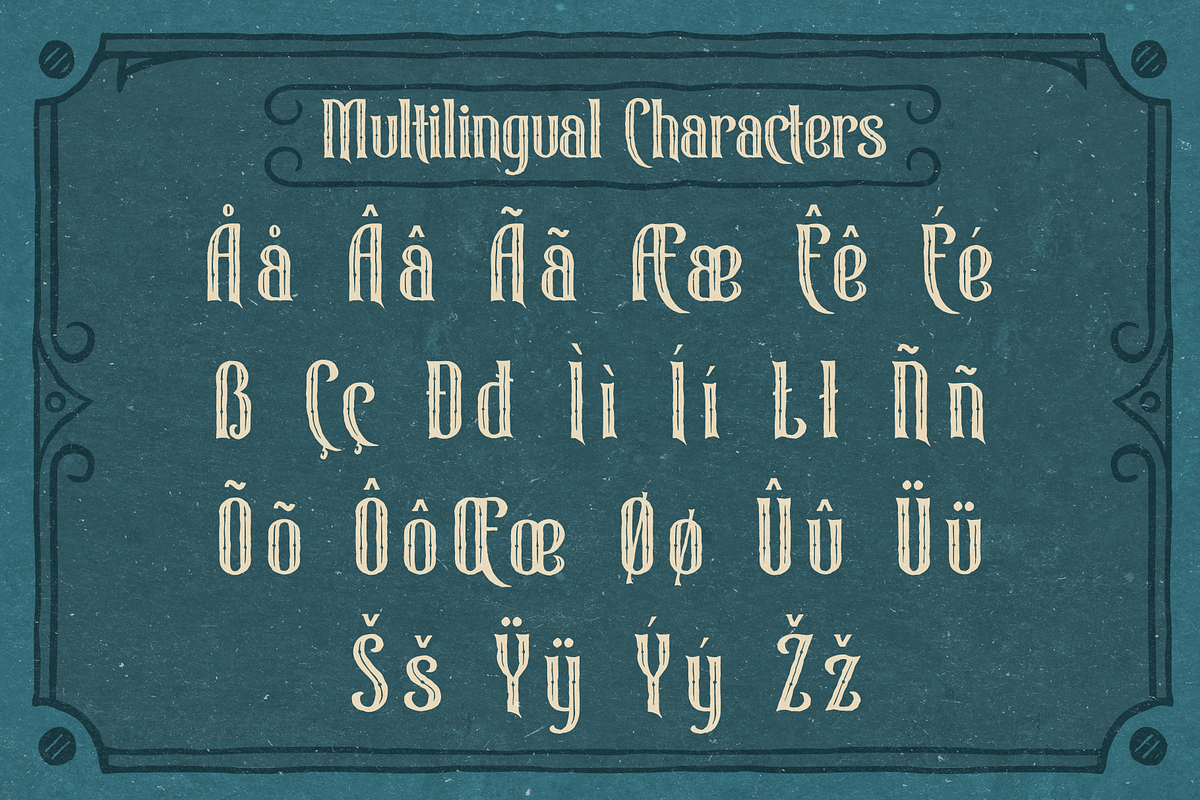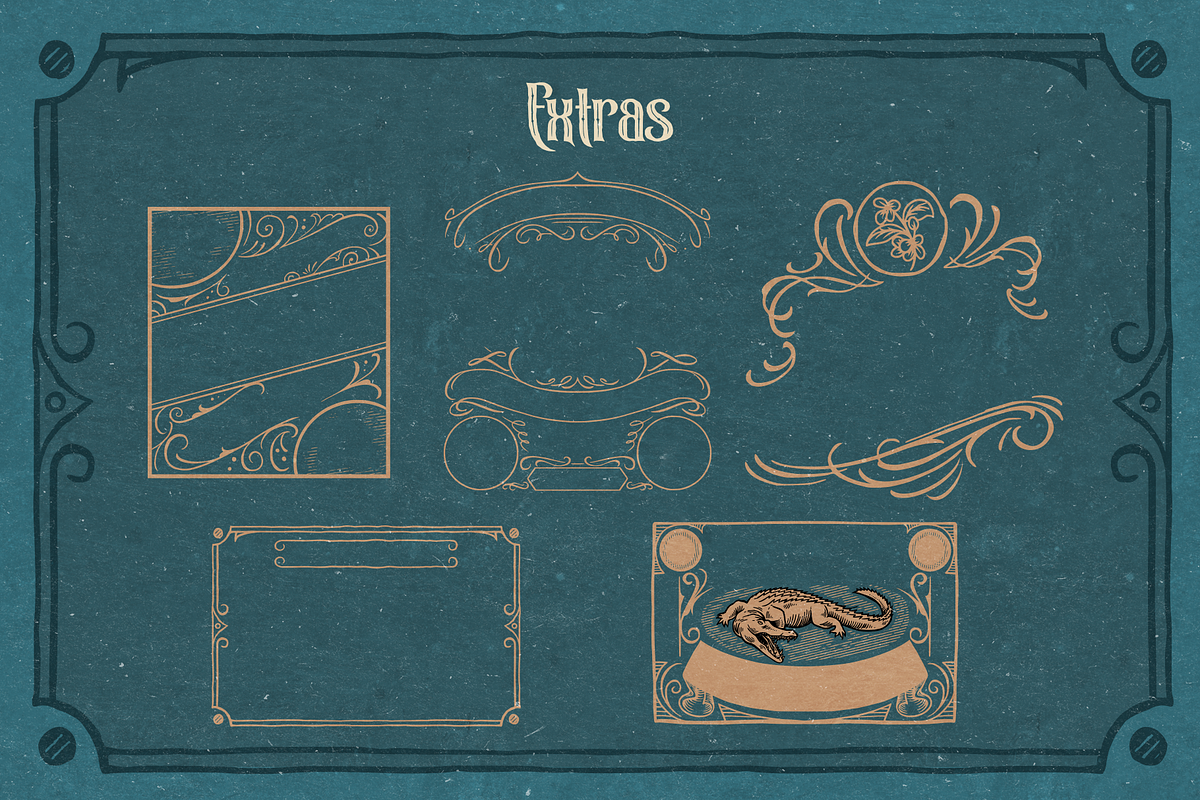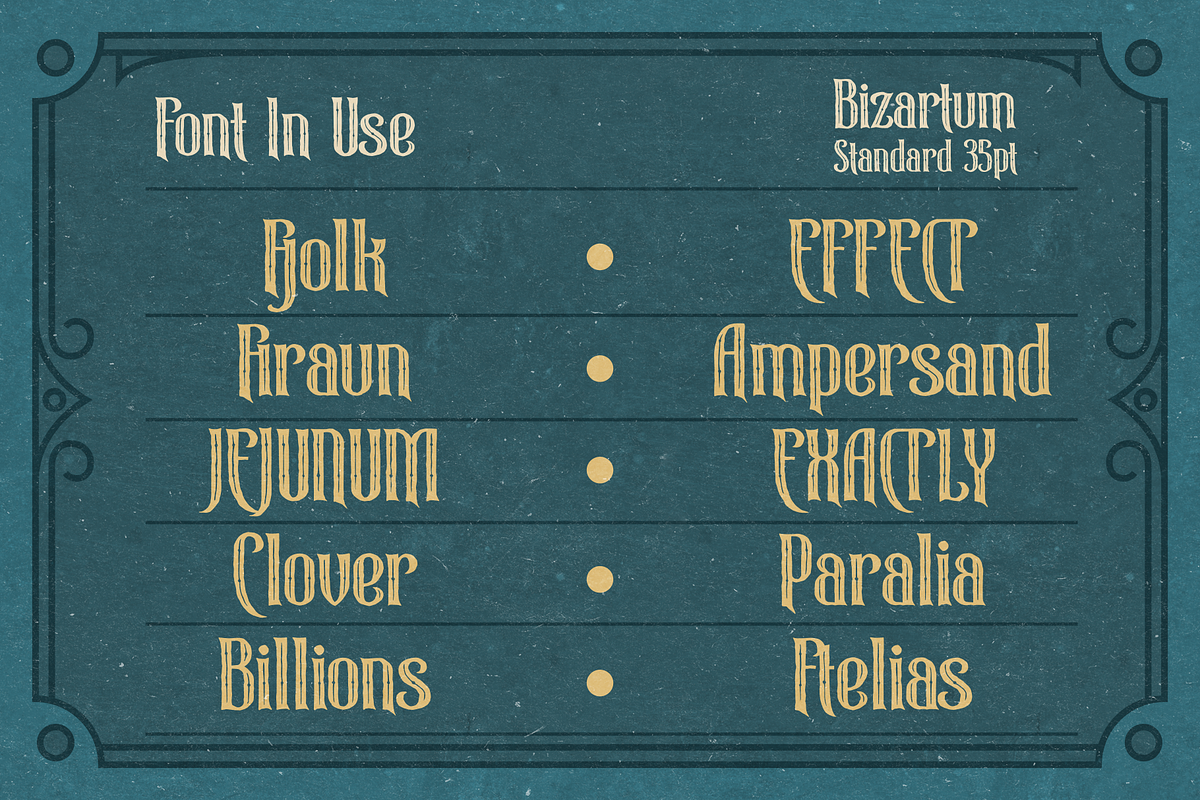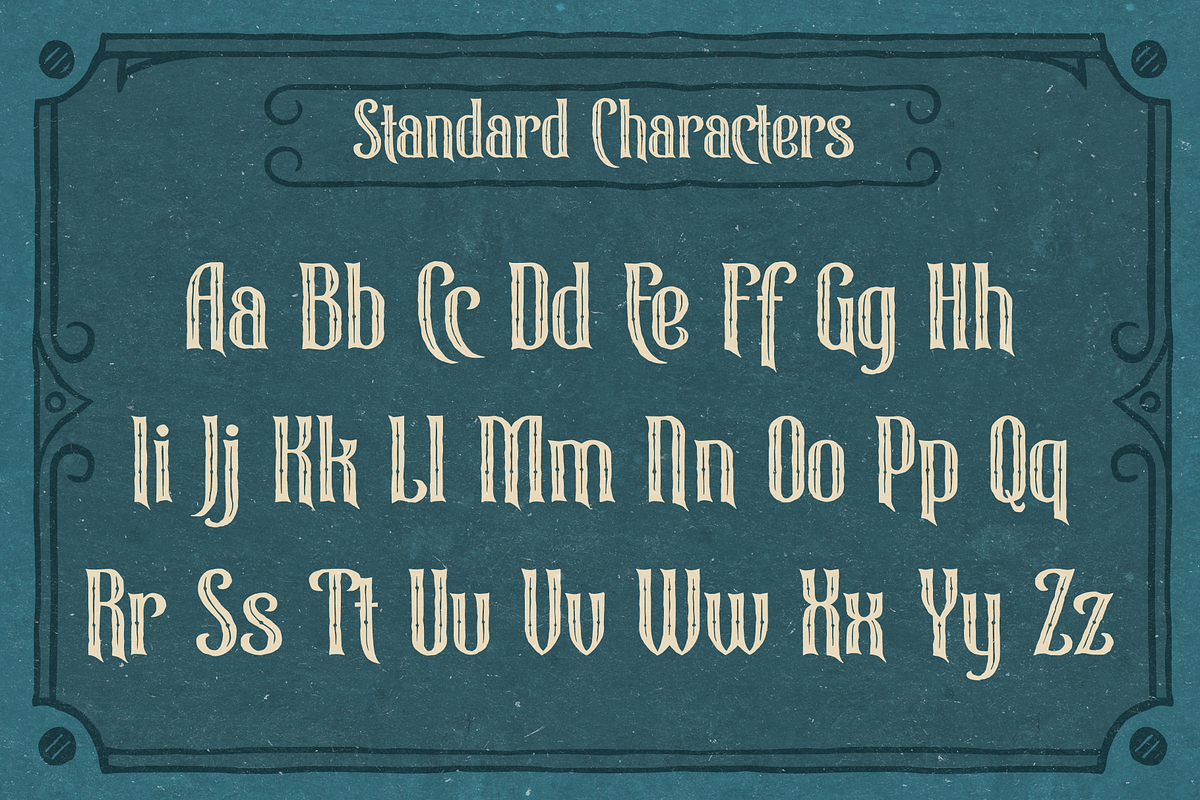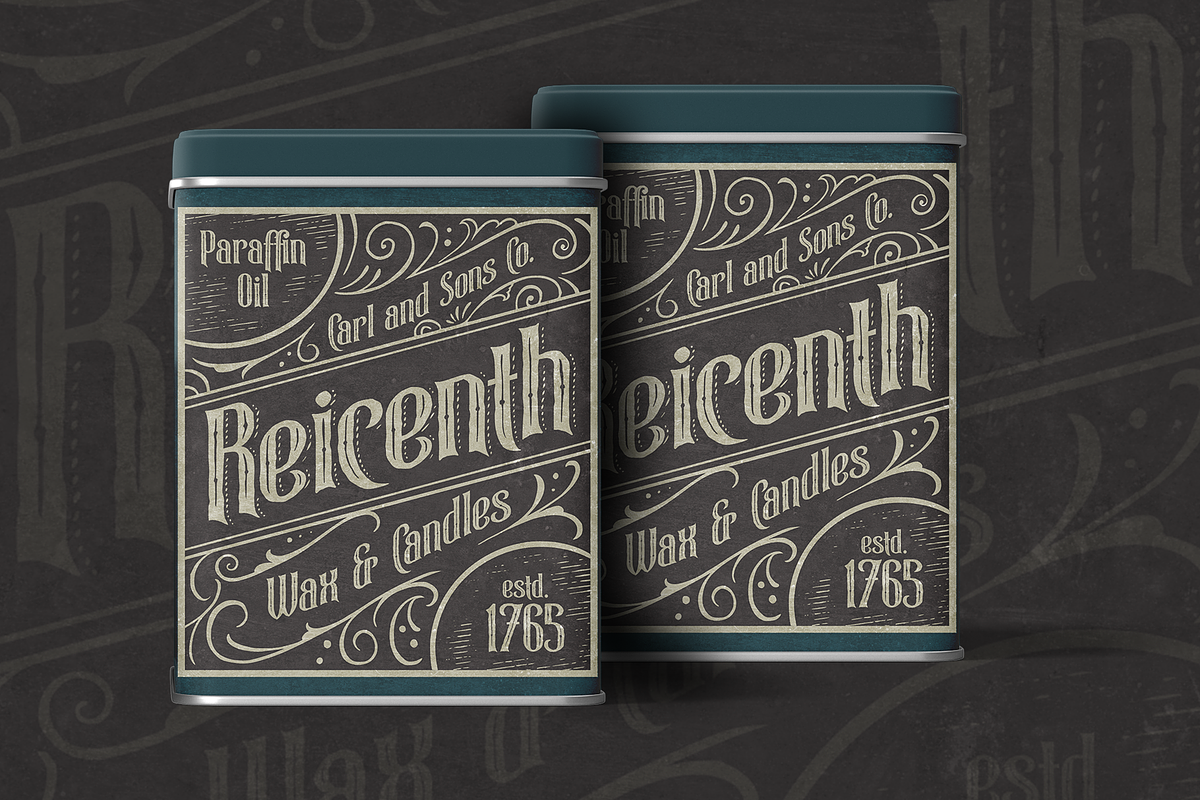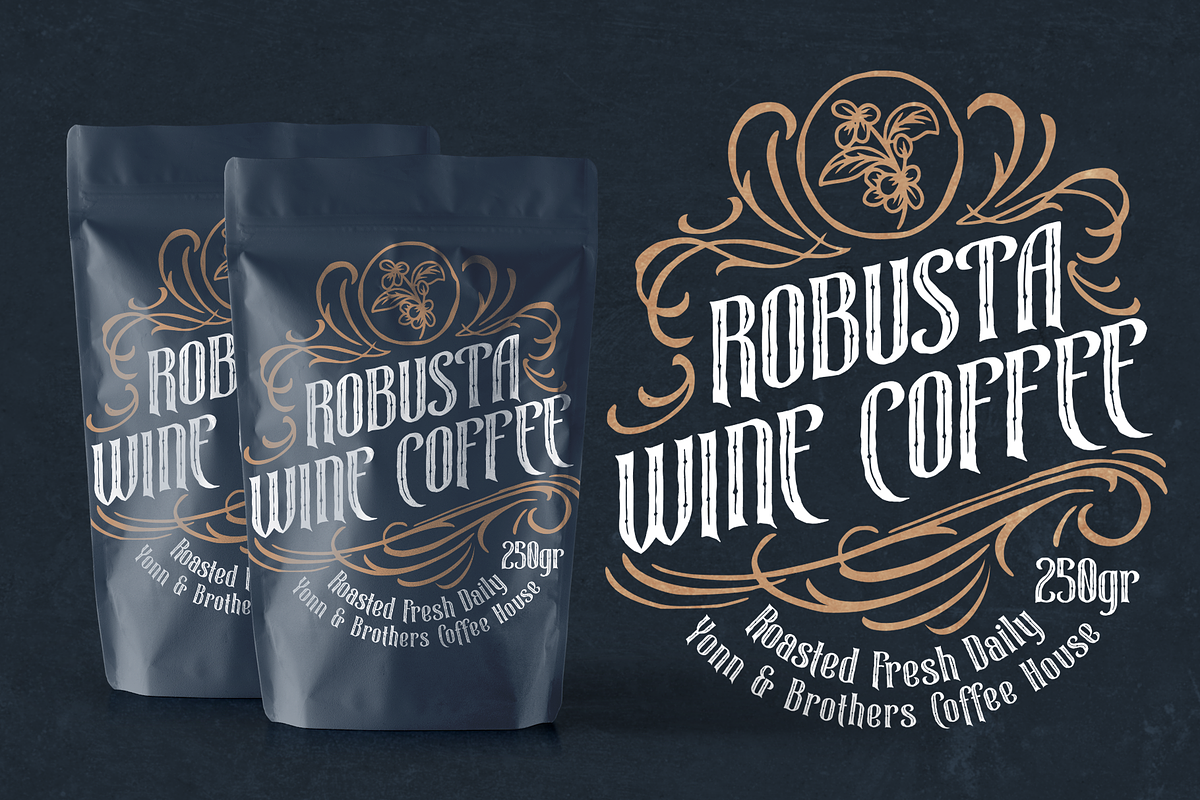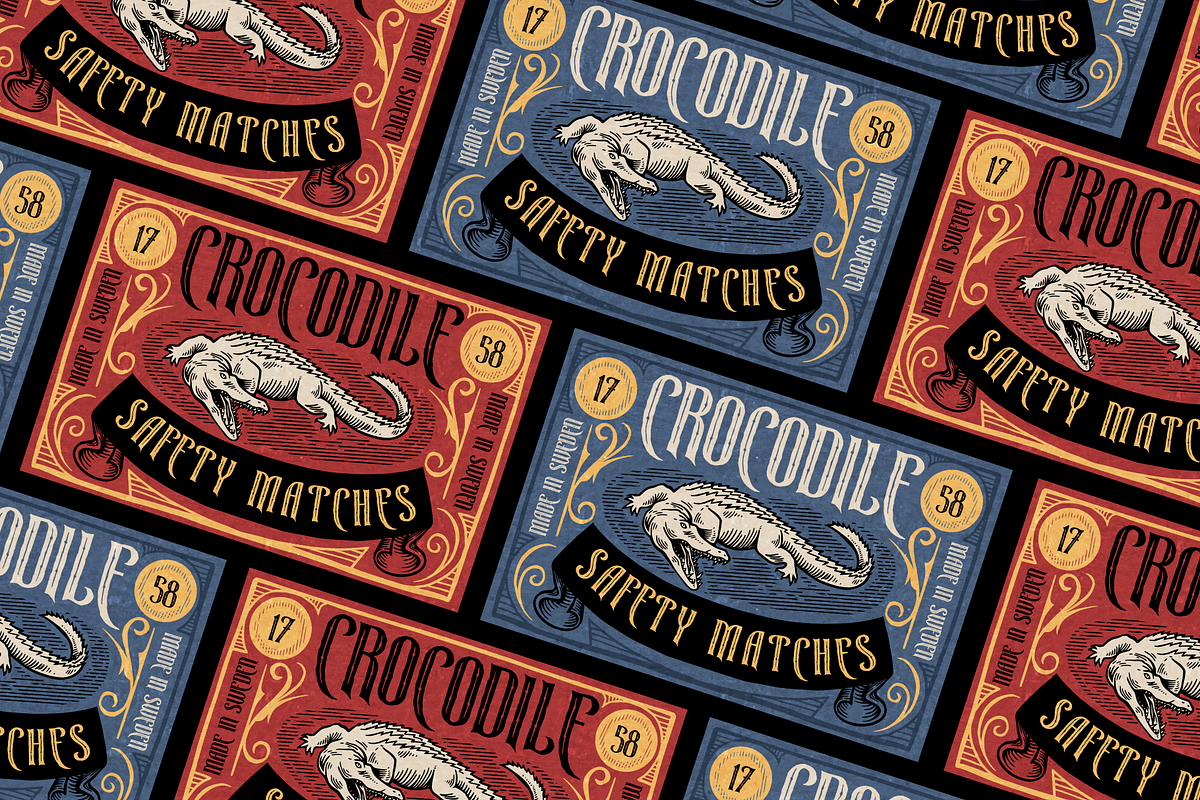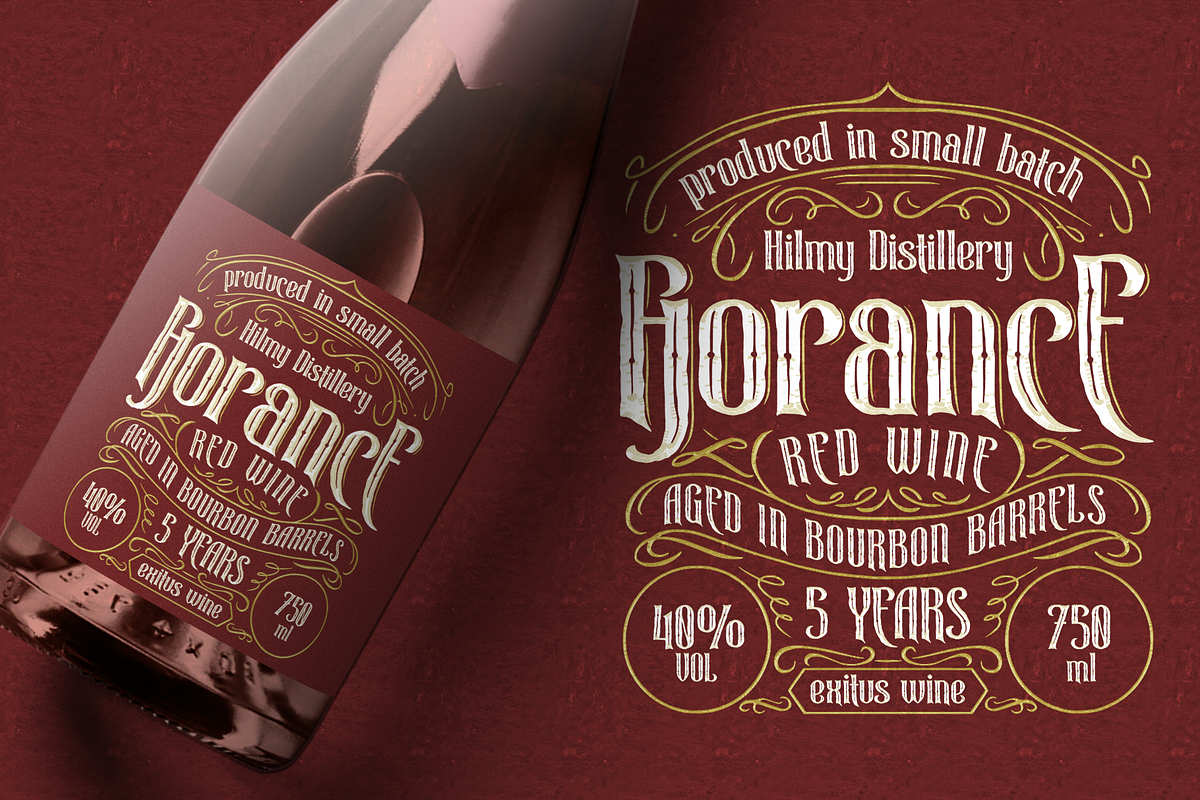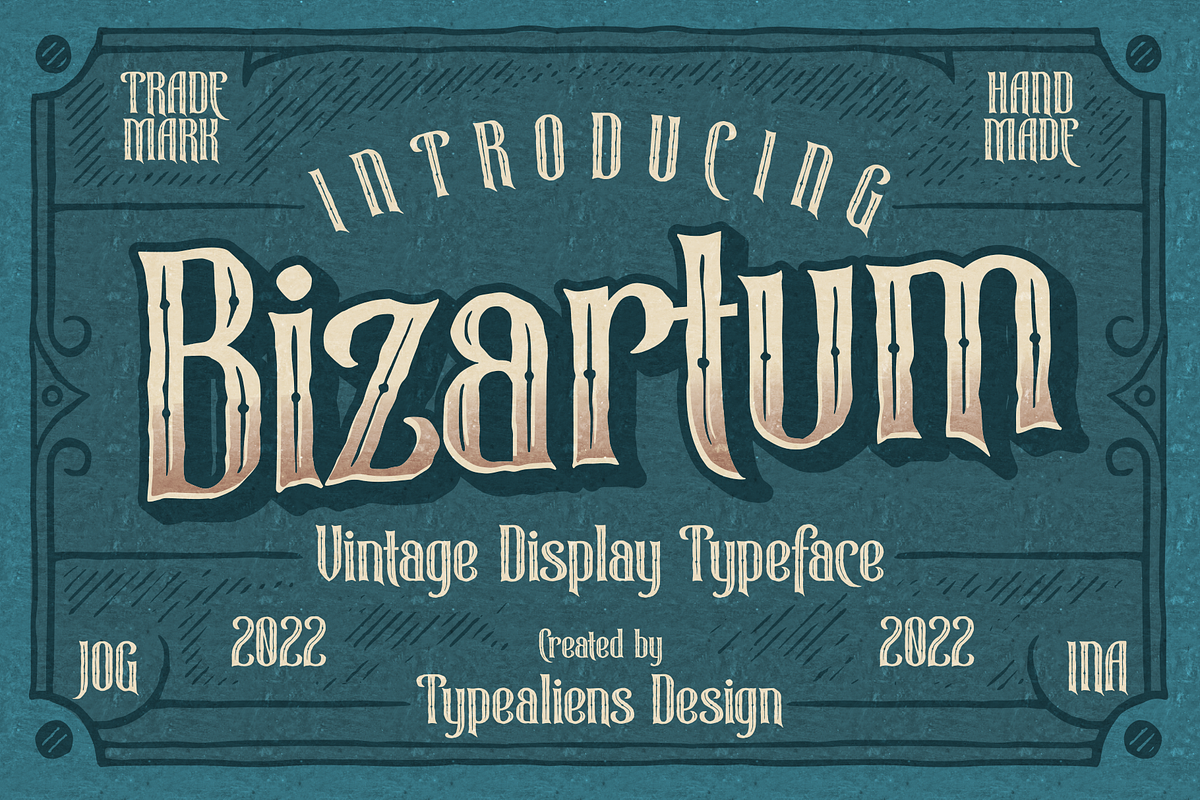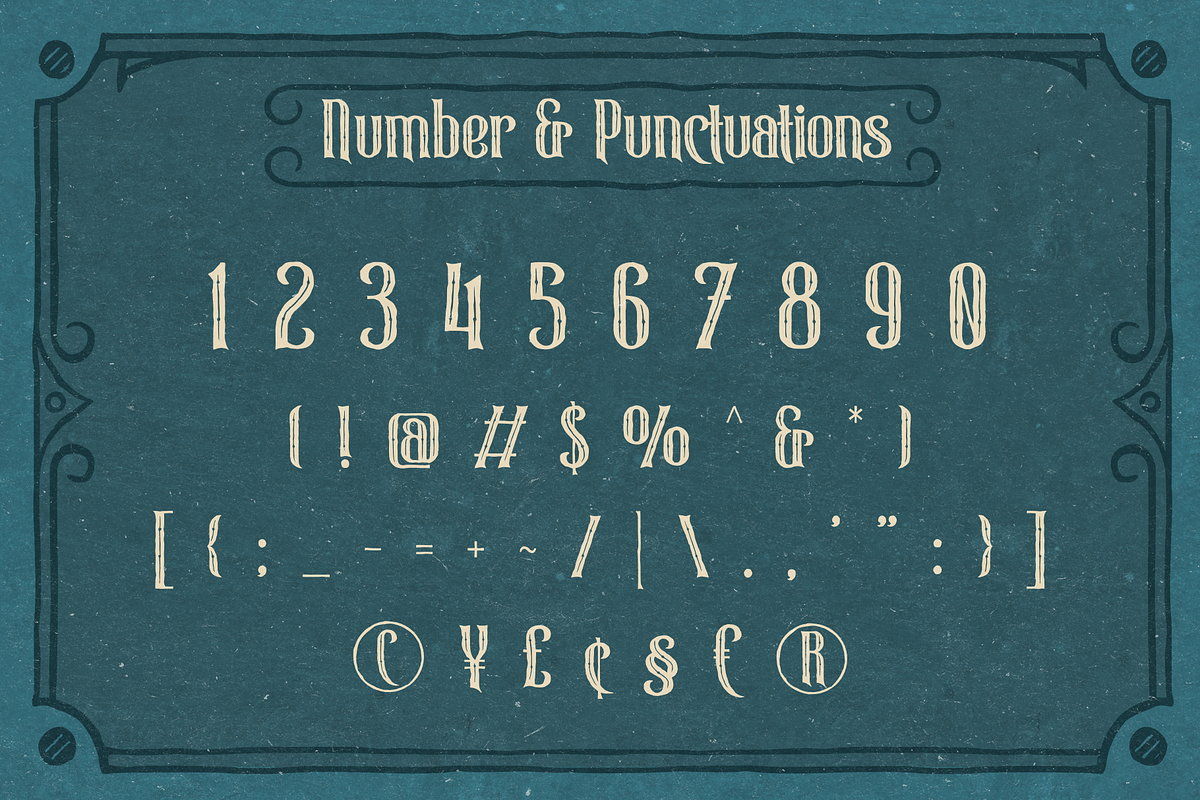
Bizartum for Vintage Logo & Branding
BIZARTUM
Bizartum is a vintage victorian font with a style that doesn't have solid strokes, aka the edges are not neat. Coupled with the middle feature that has a vertical hole. A classic font suitable for creating branding designs on liquor including design labels for the bottles. Besides that, it is suitable for retro brand designs or brands that require a classic design.